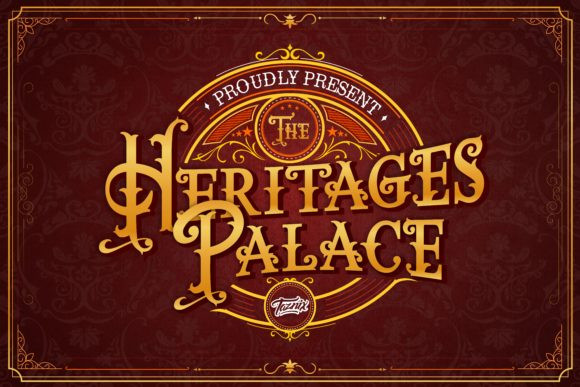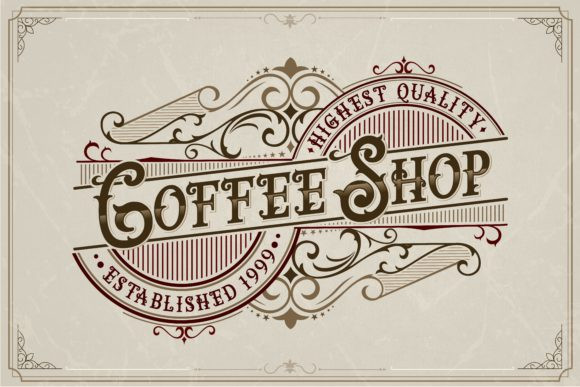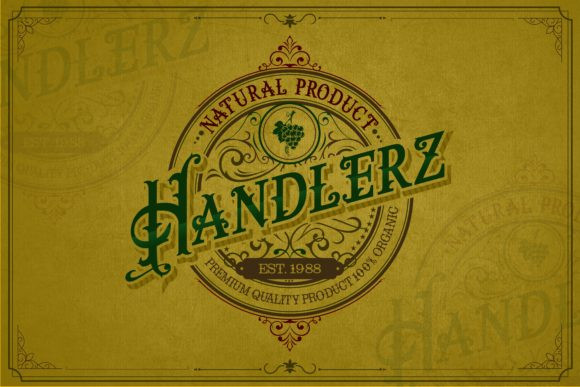
The Heritages Palace Font
The Heritages Palace simplifies elegance into one truly outstanding display font. Use this gorgeous and unique display to bring any DIY project to life!